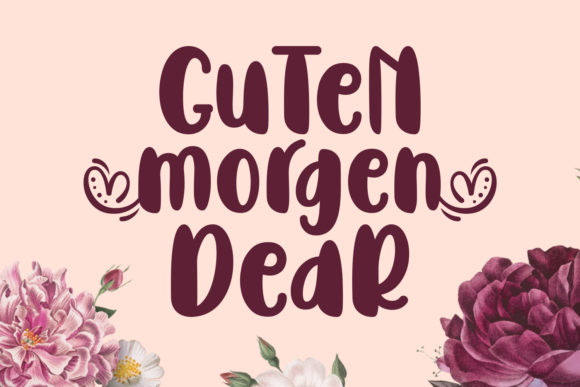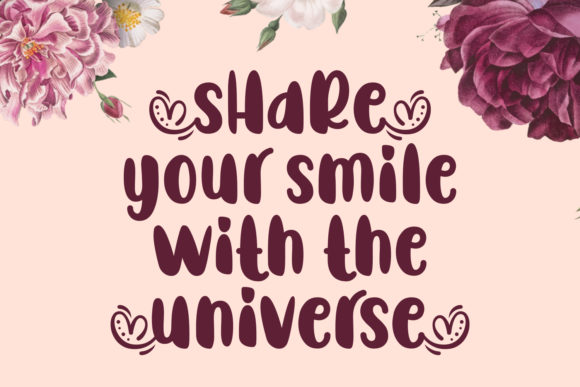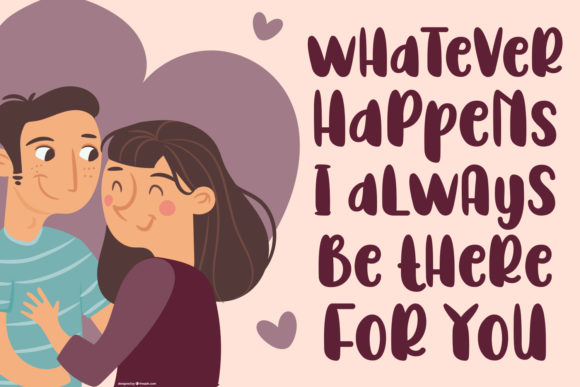
Guten Morgen Dear Font
About Guten Morgen Dear Font
Guten Morgen Dear is a light and authentic handwritten font with a unique feel. It will inspire any new design project with its whimsical and personal charm.